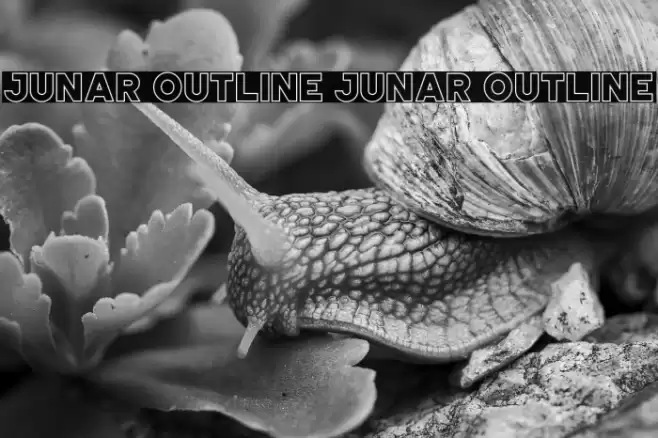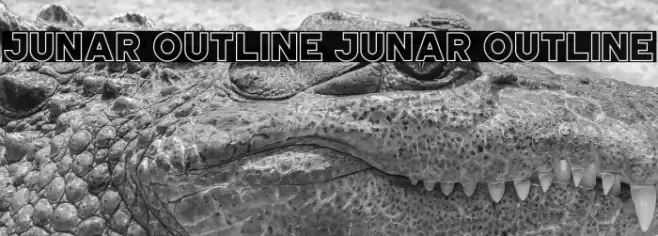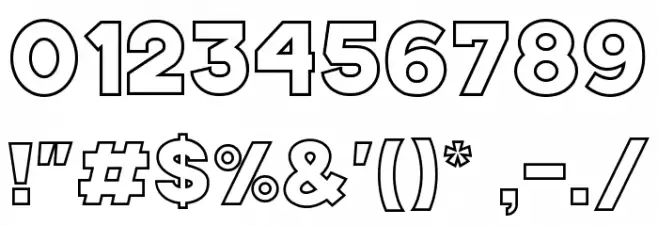
JUNAR OUTLINE Font
JUNAR OUTLINE Description
This font features a bold, geometric sans-serif style with a distinct outline effect. Each character is defined by a thick, uniform stroke that creates a hollow appearance, giving it a modern and eye-catching look. The uppercase letters are consistent in height and width, providing a balanced and structured aesthetic. The numbers and special characters maintain the same outline style, ensuring uniformity across all glyphs. This font is ideal for designs that require a strong visual impact, such as headlines, posters, and branding materials.
A bold, geometric sans-serif font with a striking outline effect from Regular fonts.
- Proposed Projects: Ideal for headlines, posters, branding, and any design requiring a modern, impactful look.